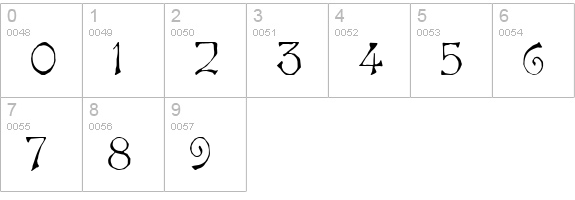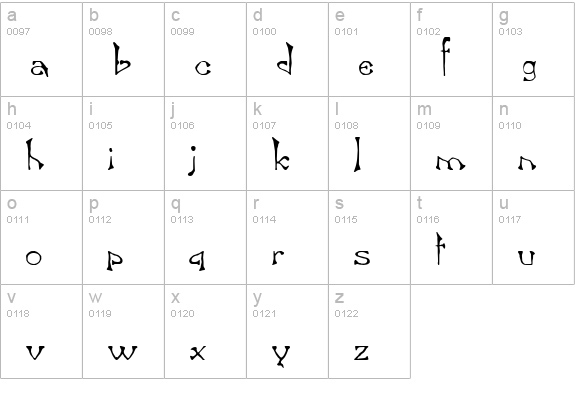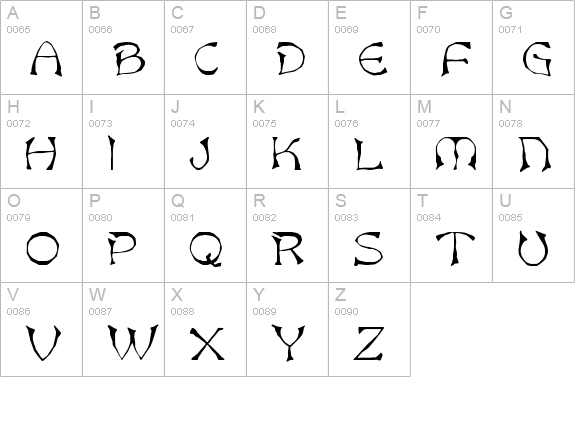
Bart Normal is the standard, neutral variant in the Bart typeface family \xE2\x80\x94 well suited to general body text, paragraphs, and standard typographic work.
Introducing Bart Normal font - a versatile and elegant typeface that effortlessly combines modernity with classic charm. With its clean lines and balanced proportions, Bart Normal is perfect for a wide range of design projects, from branding to editorial design and beyond. This stylish font features a subtle sophistication that is sure to make your text stand out. Whether you're creating a sleek logo or designing a sophisticated website, Bart Normal is the perfect choice to convey professionalism and style. Best of all, Bart Normal is available for free download at FontsMarket.com. So why wait? Elevate your design projects with this timeless and versatile font today!